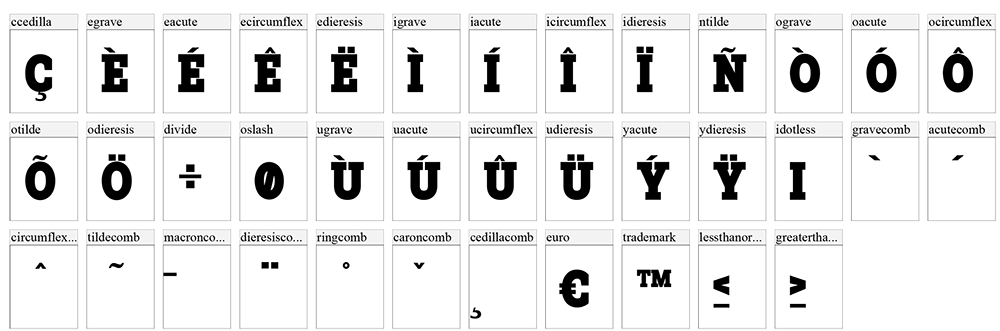
Ranked Sports: A bold and energetic font, inspired by the world of competitive sports. Its thick strokes and sharp angles capture the determination and drive of athletes pushing to the top, while its blocky letters convey a sense of power and strength. Ideal for creating designs for sports teams, athletic events, and any other project that demands a commanding presence, Ranked Sports is sure to make a statement on the field or in the arena.
Numbers: Yes
Punctuation: Yes
Accents: Yes